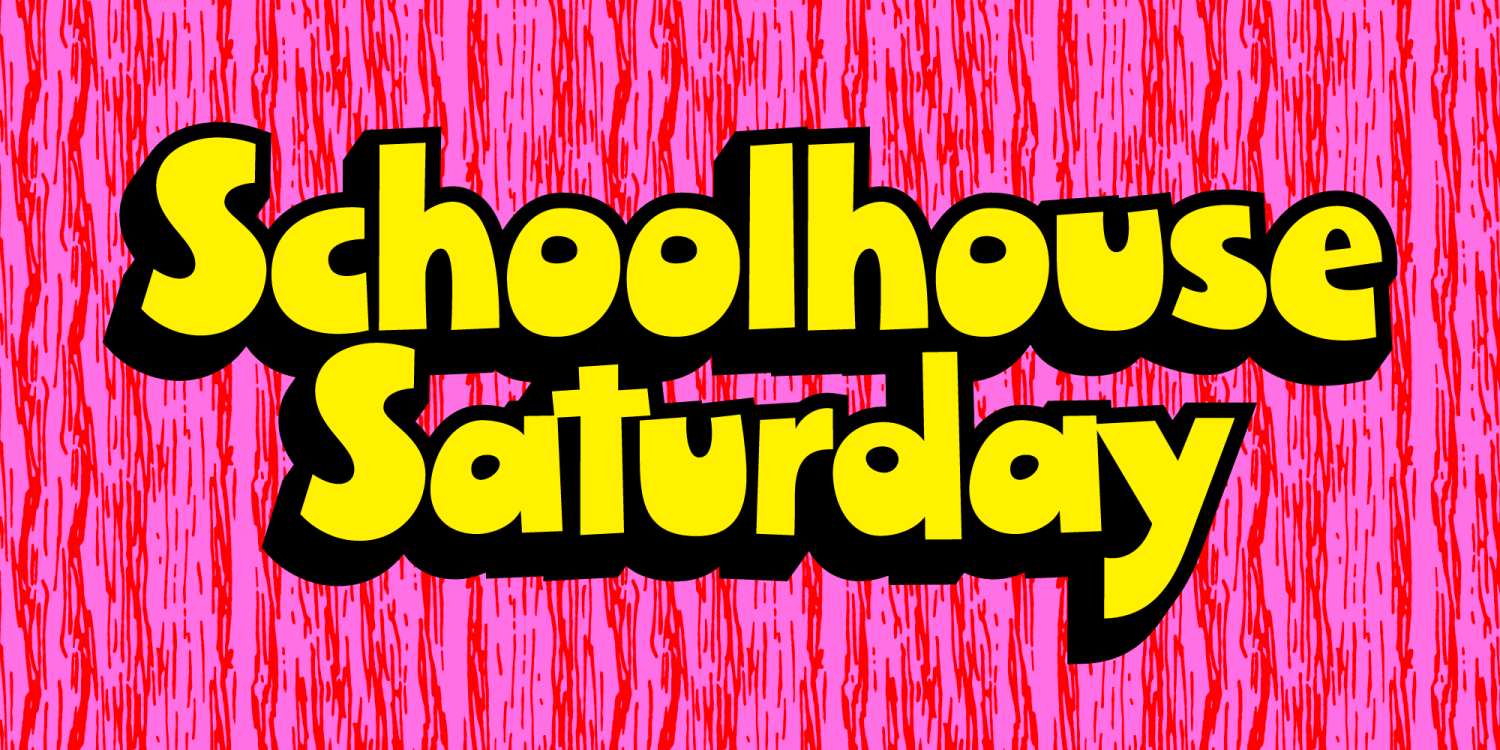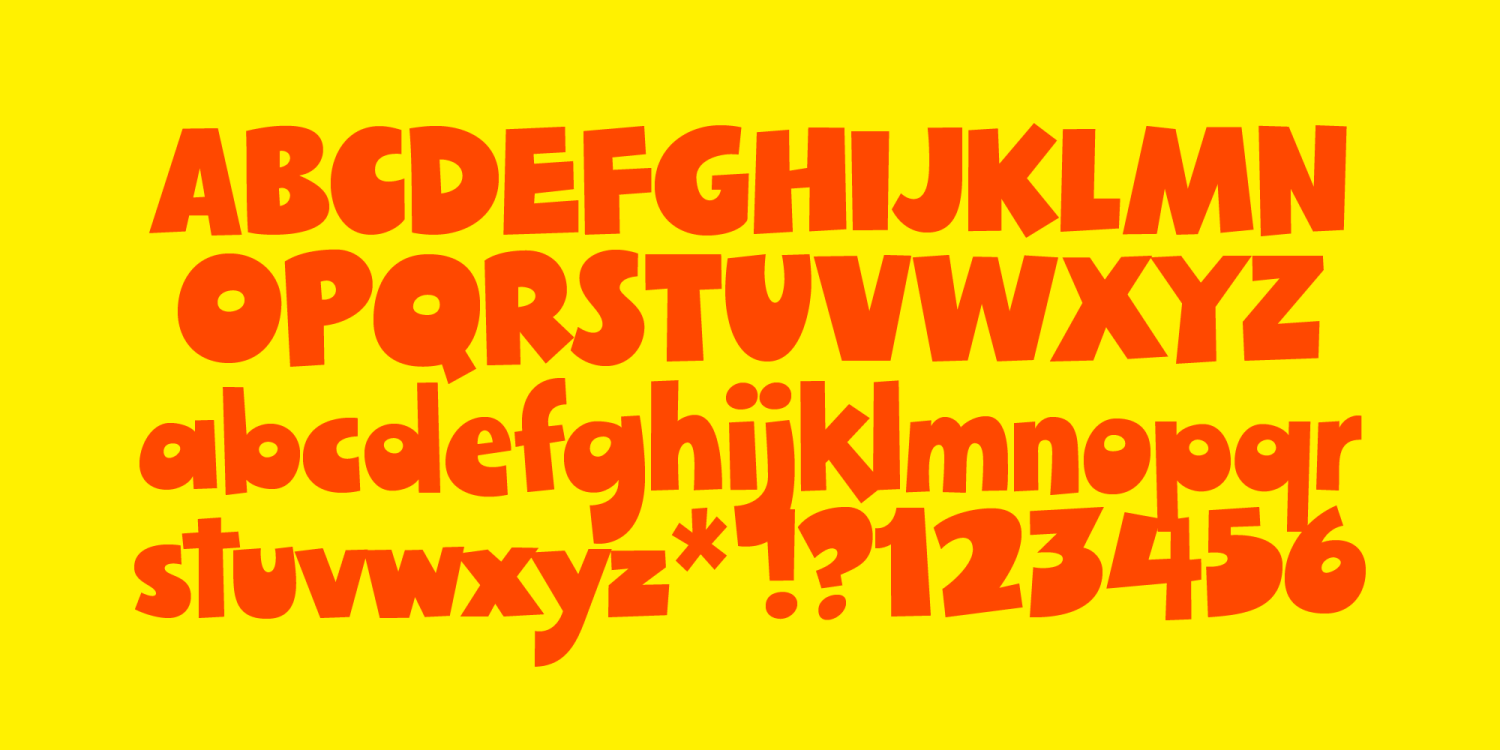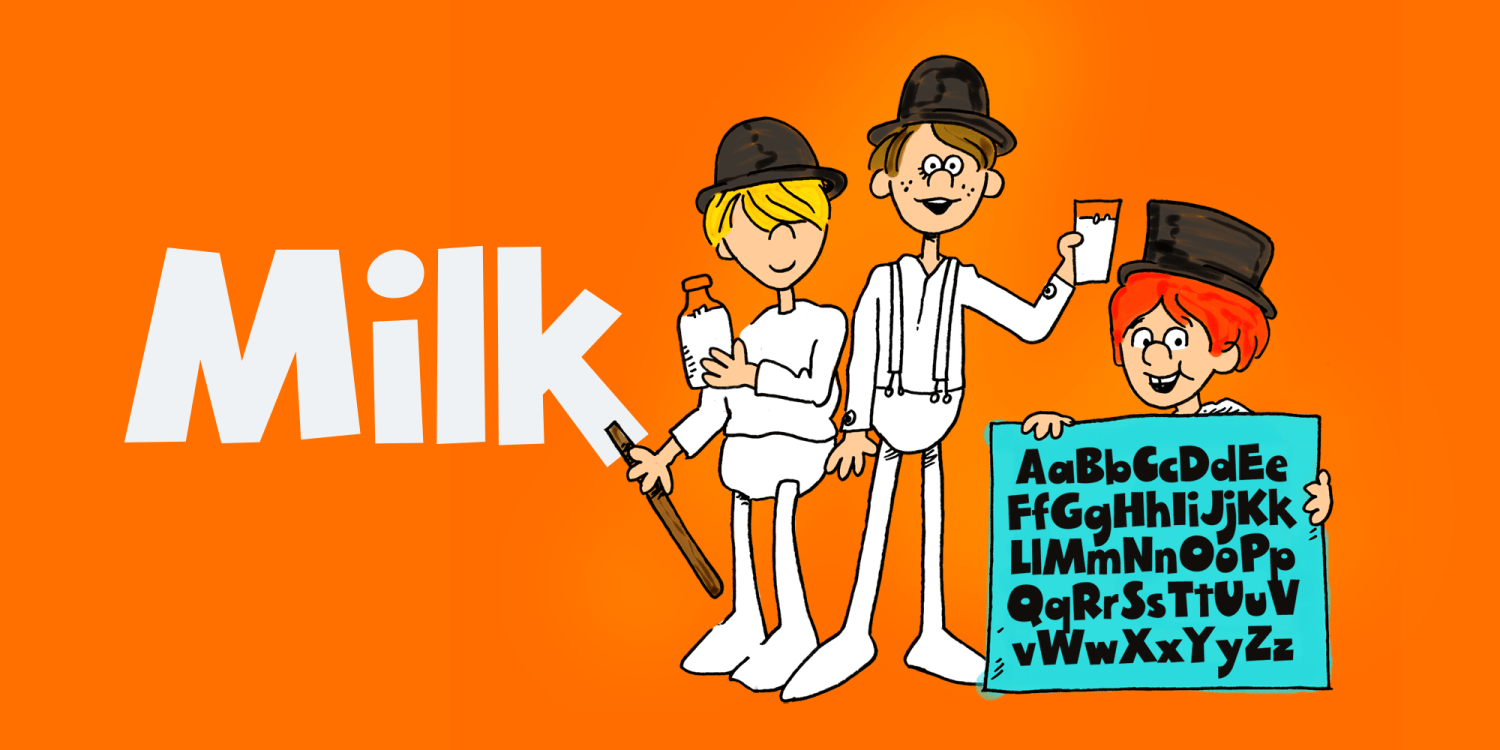
Milk
About Milk
Schoolhouse Rock was one of my fondest memories of childhood, so you can imagine my excitement when I found out that they recently uncovered some fascinating relics in the Tom Yohe\’s old office at ABC Headquarters. Amongst the pages of discarded artwork…